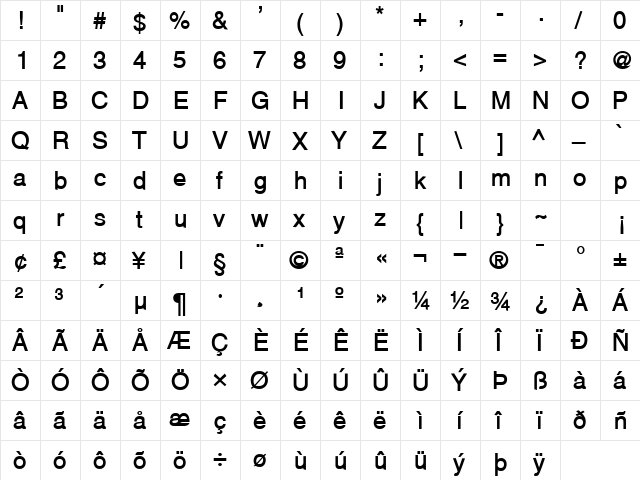
Alps-Extended Bold
Design Context for Alps-Extended Typeface
Alps-Extended takes a measured approach to typography — its balanced proportions and neutral character make it a reliable workhorse for both digital and print work. Its bold stroke weight gives it real presence on the page.